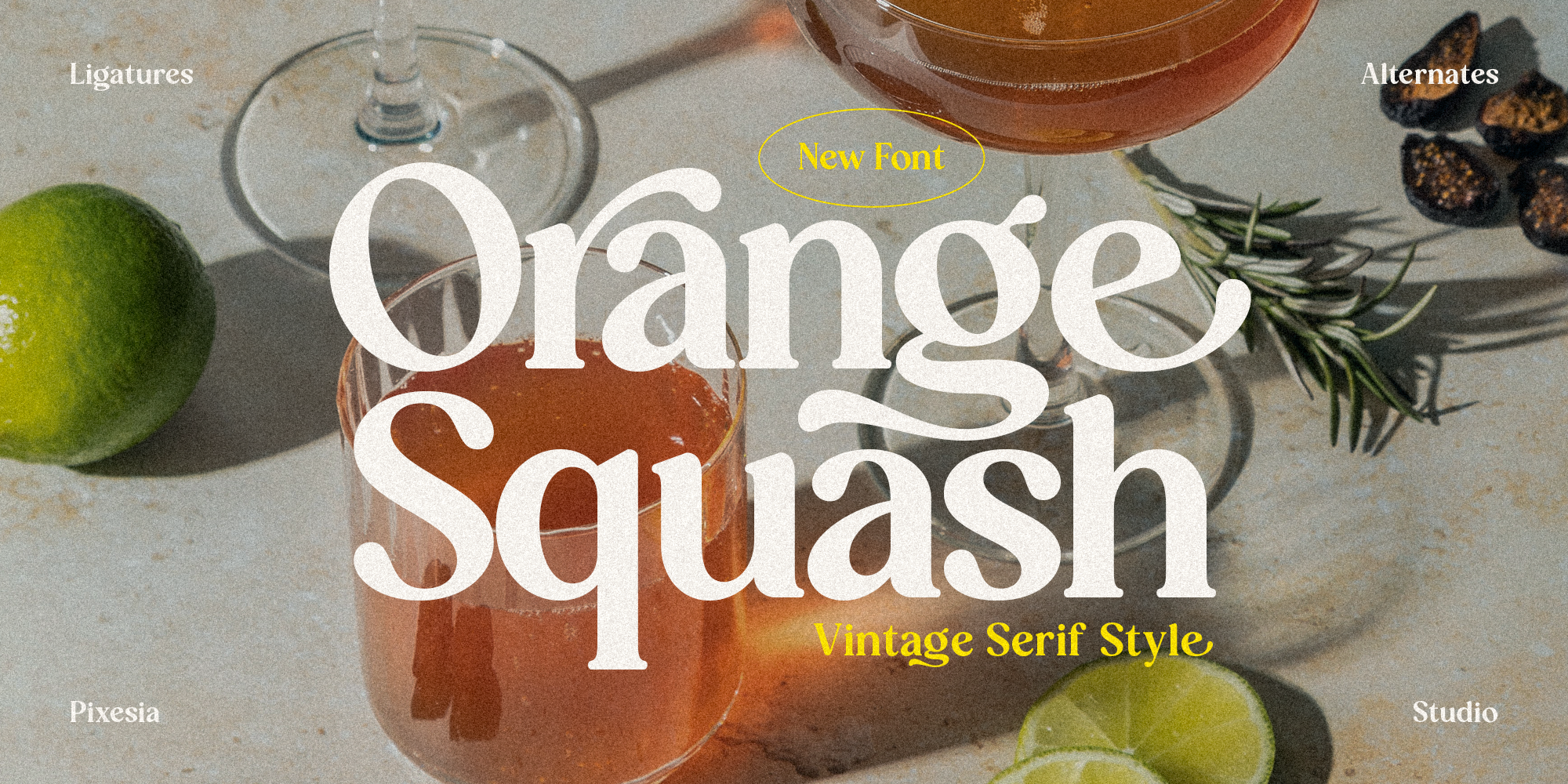
This vibrant typeface is perfect for juice bars, fruit beverage brands, citrus packaging, vitamin supplement companies, health food stores, smoothie shops, organic produce markets, tropical restaurants, summer festivals, children's drink products, energizing sports drinks, and refreshing beverage campaigns. The font's zesty design makes it ideal for projects that celebrate natural energy, vitamin-rich nutrition, and the invigorating burst of citrus flavors that awaken the senses and provide healthy refreshment.
Orange Squash Font is exciting because it embodies natural vitality and citrus energy through its juicy letterforms and fruit-inspired character structure. The font's rounded curves and energetic proportions create an atmosphere of freshness, health, and natural vigor, making it perfect for brands that want to convey nutrition, refreshment, and the vibrant appeal of natural fruit flavors. Its energizing personality ensures instant appetite while maintaining excellent readability across various beverage applications.
The Orange Squash Font family includes multiple citrus variations: Light Pulp, Regular Juice, Medium Zest, Bold Concentrate, and Black Extract weights, each available in standard and rounded versions. Special fruit editions feature splash alternates, citrus ornaments, and vitamin symbols that enhance the font's refreshing appeal, providing designers with comprehensive tools for creating authentic beverage-focused communications.
Squeeze fresh energy into design with Orange Squash Font Free Download – a typeface that represents natural vitality and citrus refreshment. Whether you're developing beverage branding, health food marketing, or summer campaign materials, this font delivers the zesty presence and energizing appeal your projects need while ensuring exceptional performance and refreshing impact across all beverage and nutrition applications.